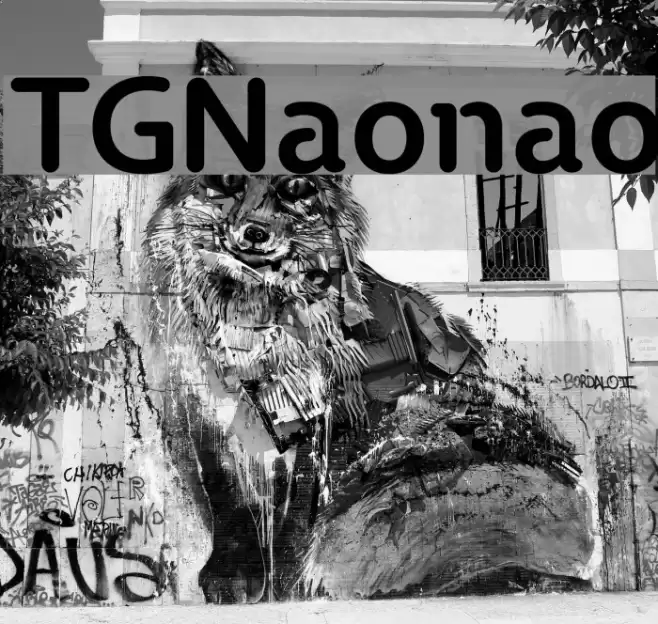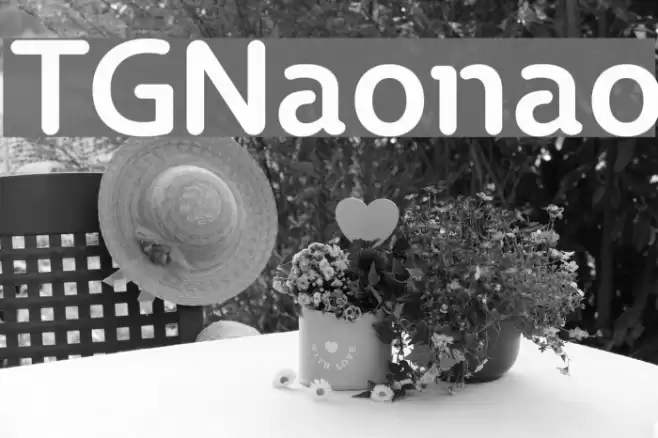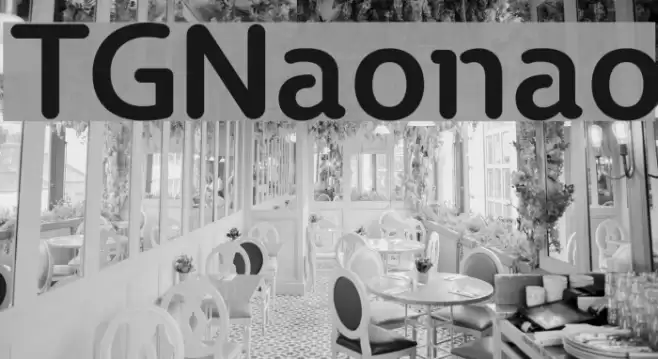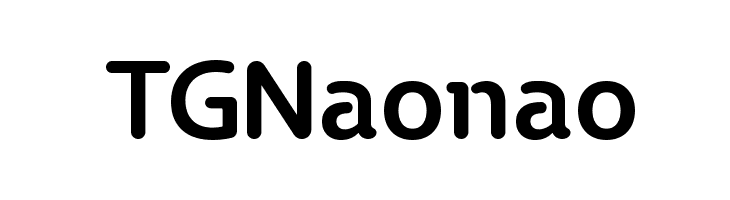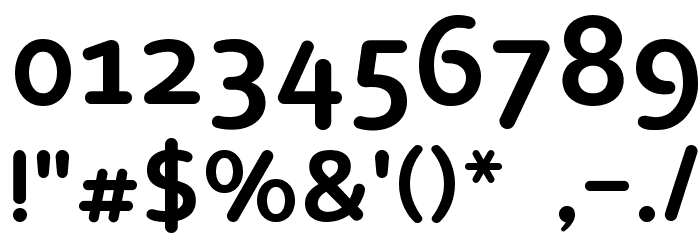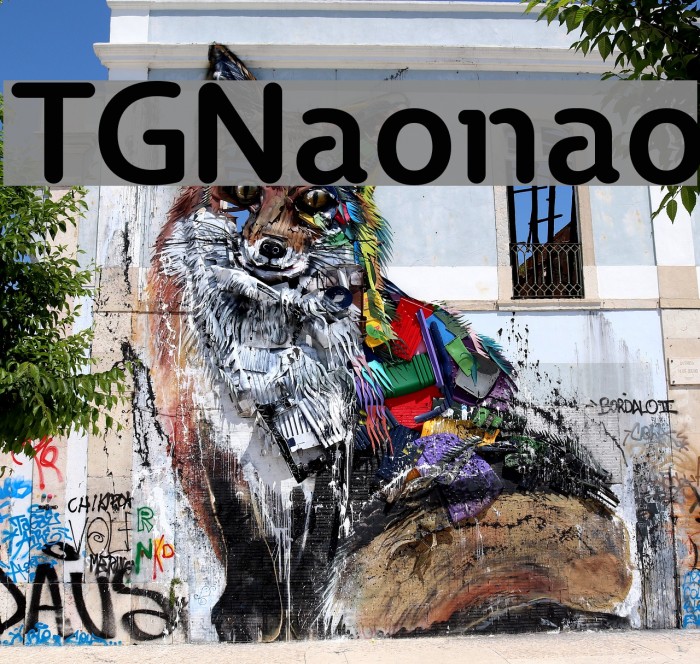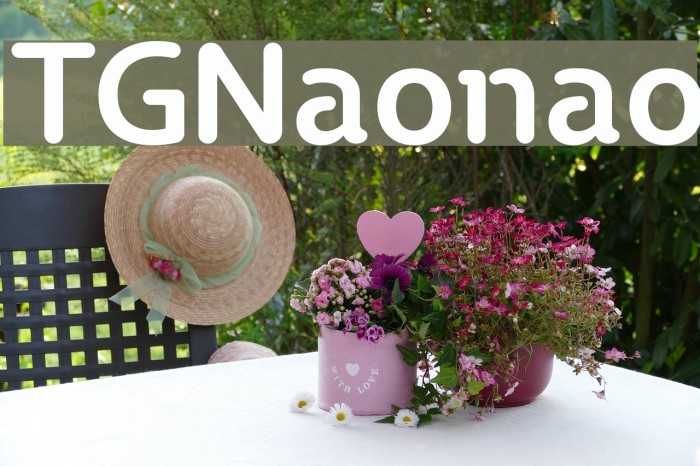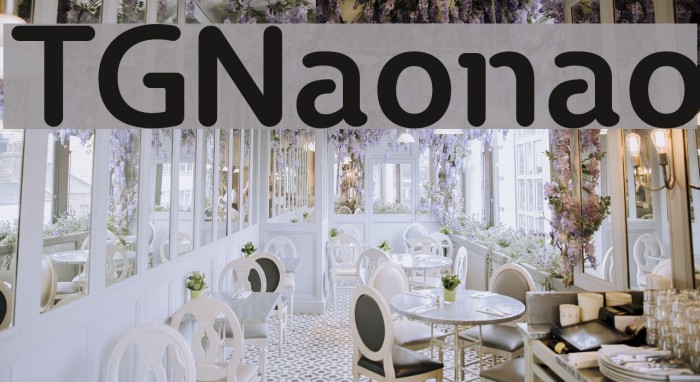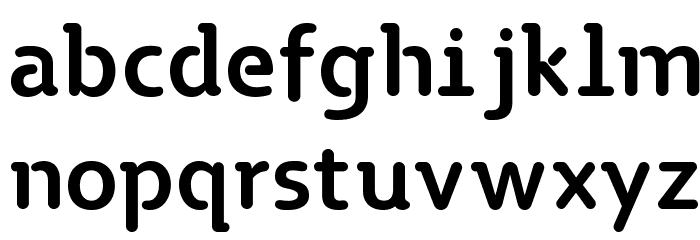
TGNaonao
This font features a clean and modern sans-serif style with rounded edges, giving it a friendly and approachable appearance. The characters are evenly spaced, providing a balanced and harmonious look. The uppercase letters are bold and prominent, while the lowercase letters maintain a consistent weight, ensuring readability. The numerals are clear and distinct, making them suitable for various applications. Special characters are well-defined, adding versatility to the font's use. Overall, this font is ideal for projects that require a contemporary and welcoming aesthetic.
A modern sans-serif font with rounded edges and a friendly appearance.